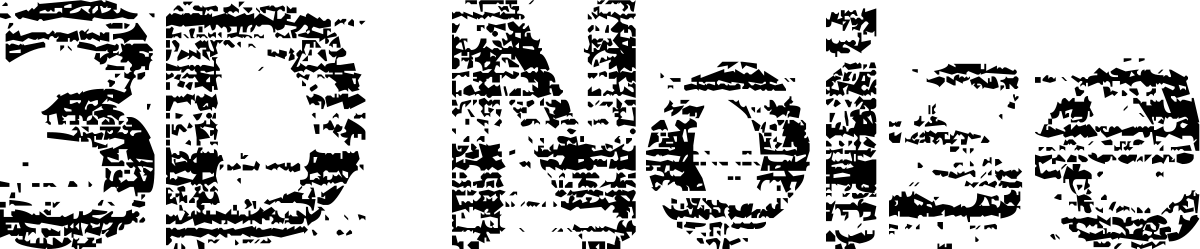
3D Noise Font
3D Noise, a glitch font, conveys a distinct vibe. If you are looking for a 3D font that communicates a fun impression, 3D Noise is what you need. You can use it in headlines and titles to have a unique design. You also can enjoy adding other similar fonts, provided on our website, to your design.